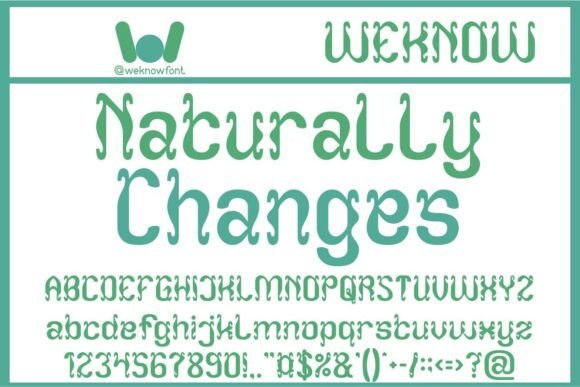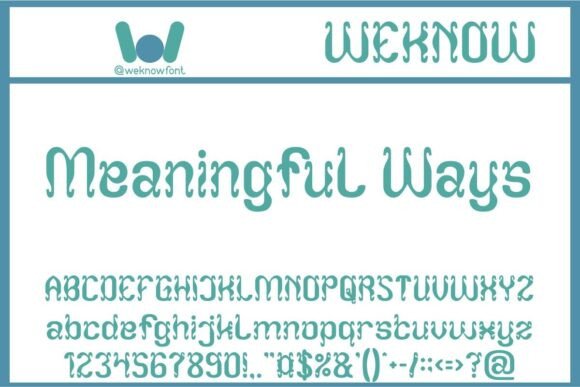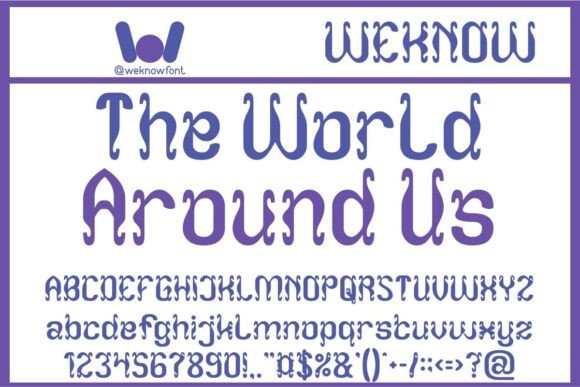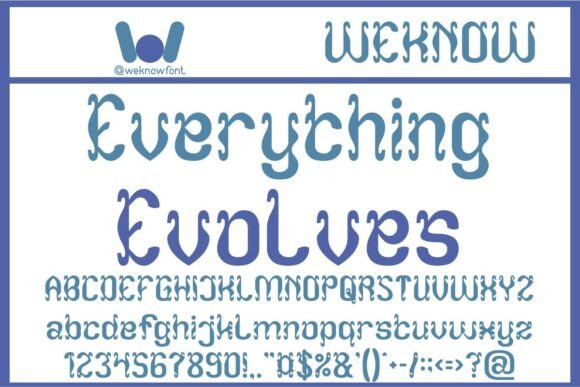
Naturally Changes Font: A Whimsical Display Font for Branding
About the Naturally Changes Font
Get ready to be inspired by Naturally Changes Font, a fresh and dynamic typeface for modern creators. Unleash striking creativity and charm on all your designs with Naturally Changes. As a multifaceted, whimsical, and organic nature display font, it seamlessly imbues flair and uniqueness into logos, headlines, or corporate identities. Its eclectic style brings a breath of fresh air to brand identities, effortlessly making an impression. Ideal for use across the apparel industry, it adds a tasteful and jovial touch to all artwork. Enrich posters, music covers, movie titles, and games with its playful essence. It’s perfect for enhancing magazines, books, comics, and cartoons, adding a sprightly vibe that captivates and entertains. With Naturally Changes, your YouTube videos and Instagram posts will radiate with a personal touch. Moreover, it provides a fascinating flair to websites, brightening your online presence with a unique spin. Venture out on your creative design projects with Naturally Changes and watch your ideas come beautifully to life.
Naturally Changes Font Usage Examples
Naturally Changes Font Example